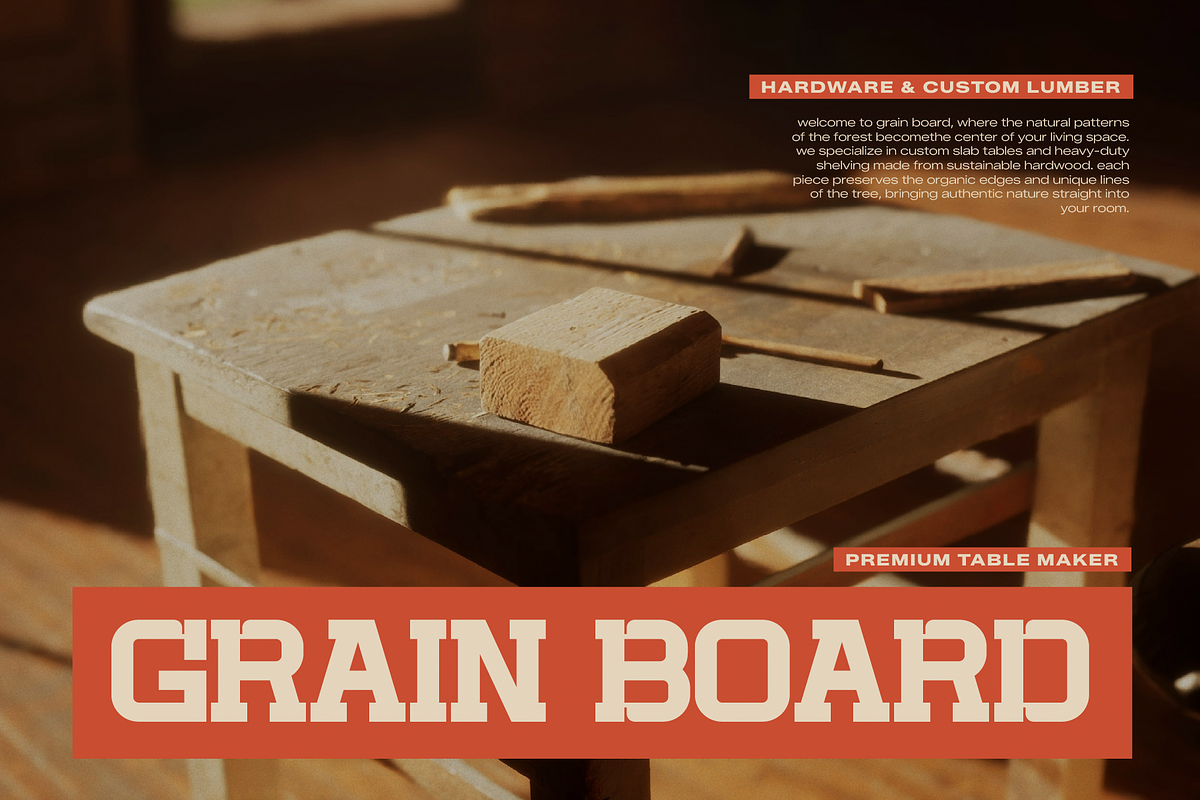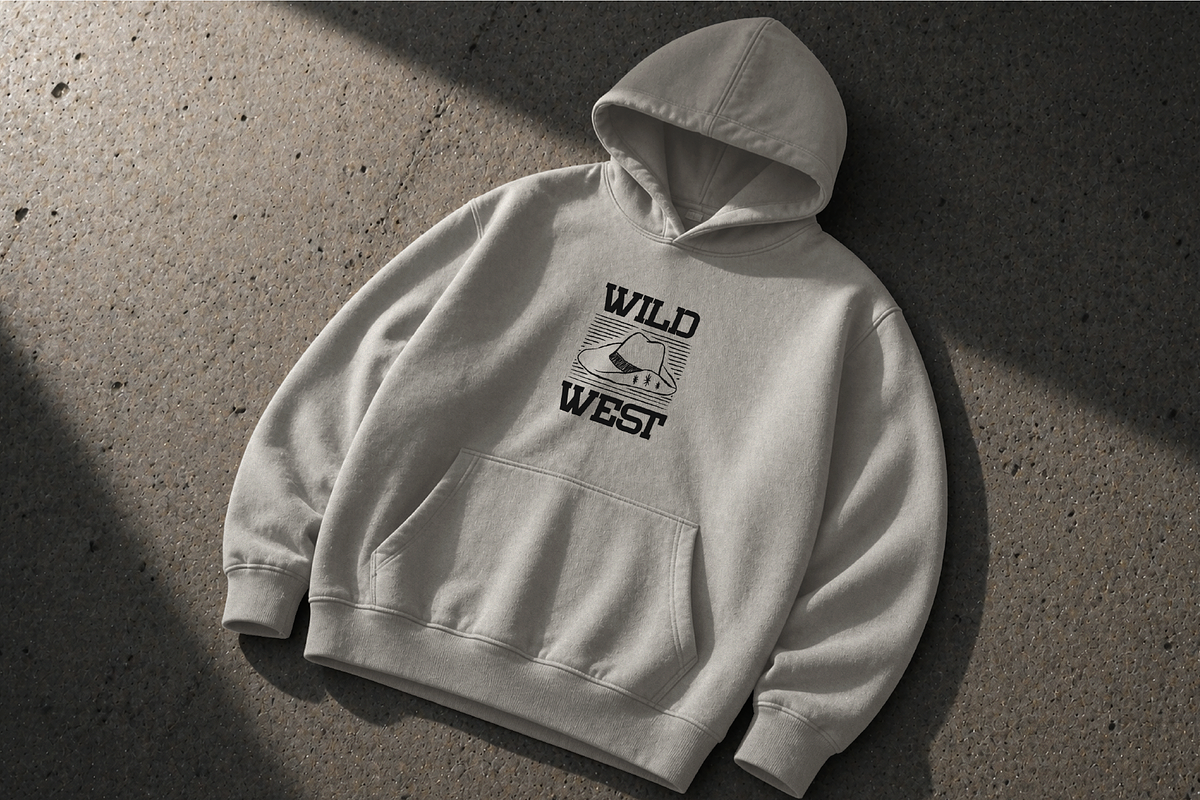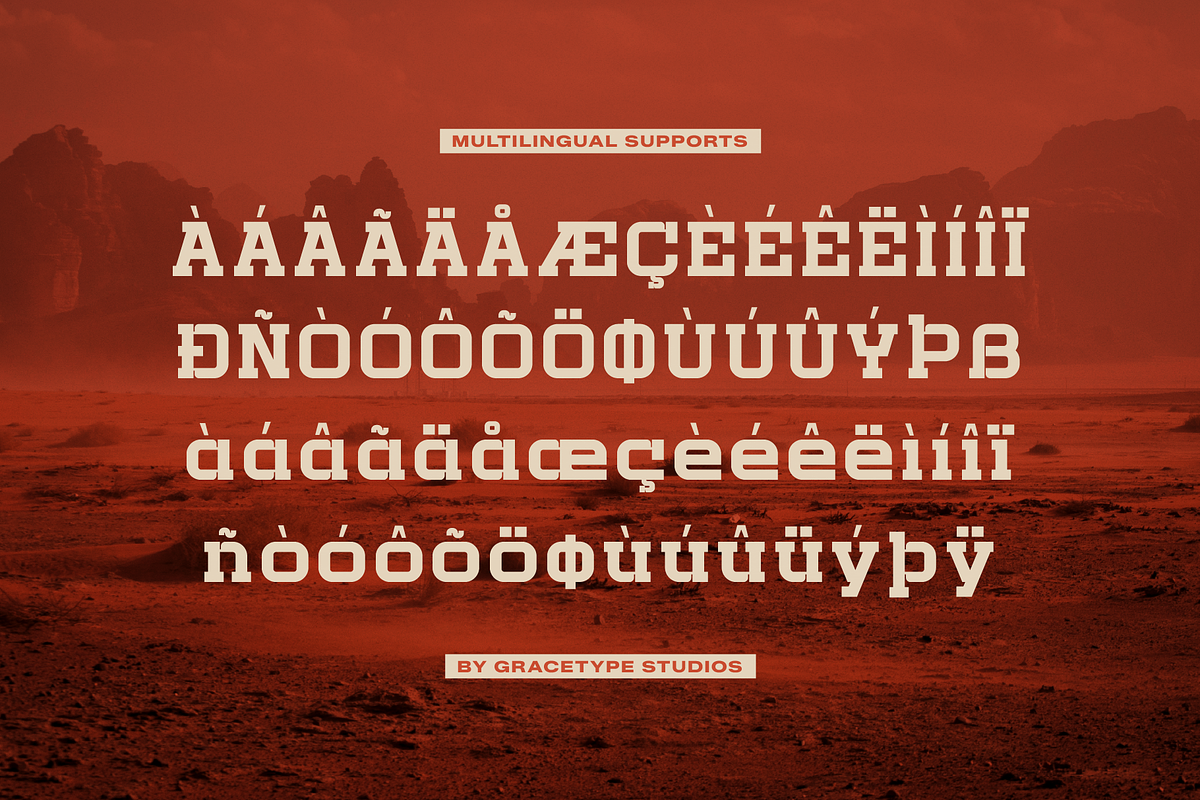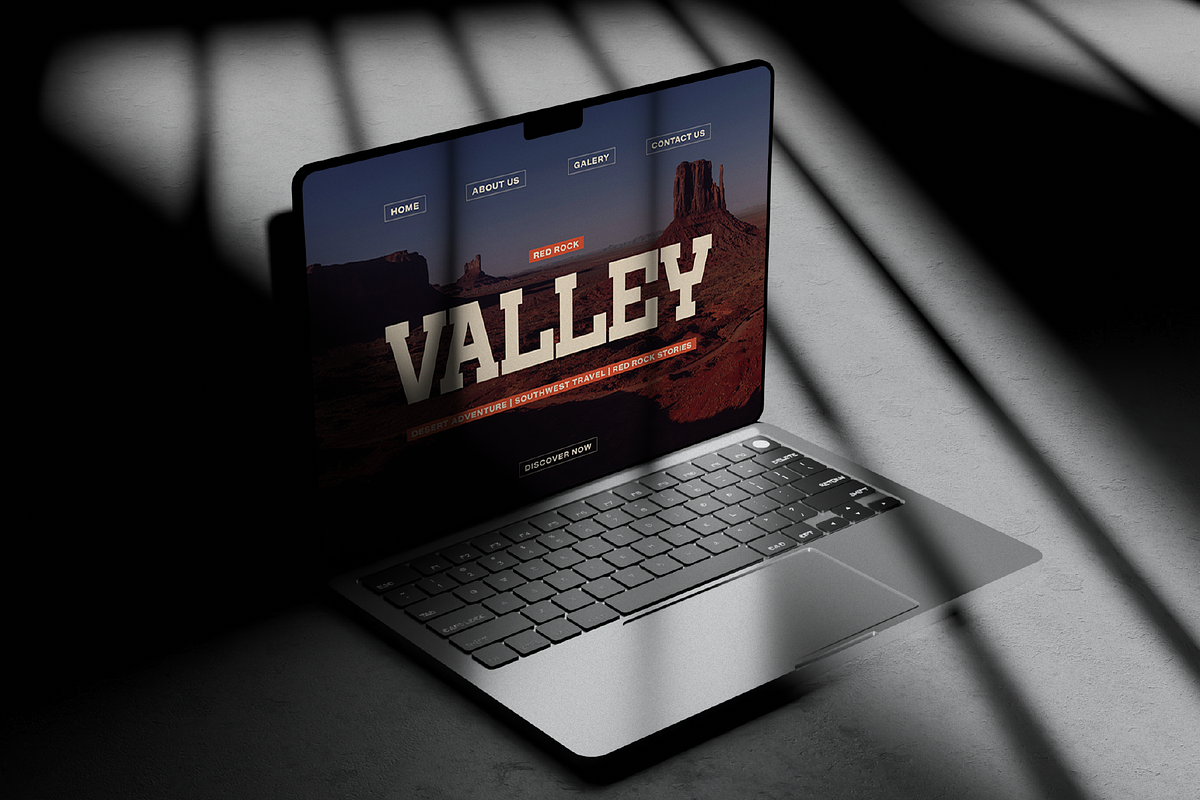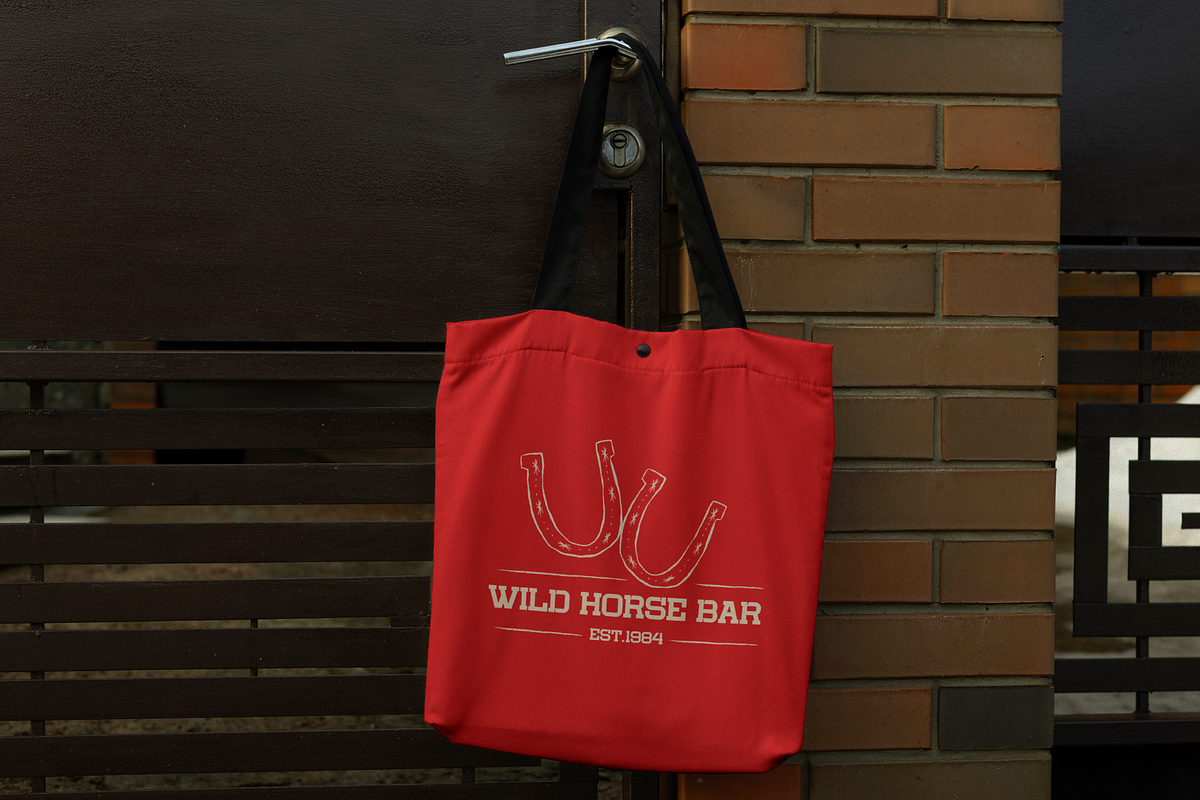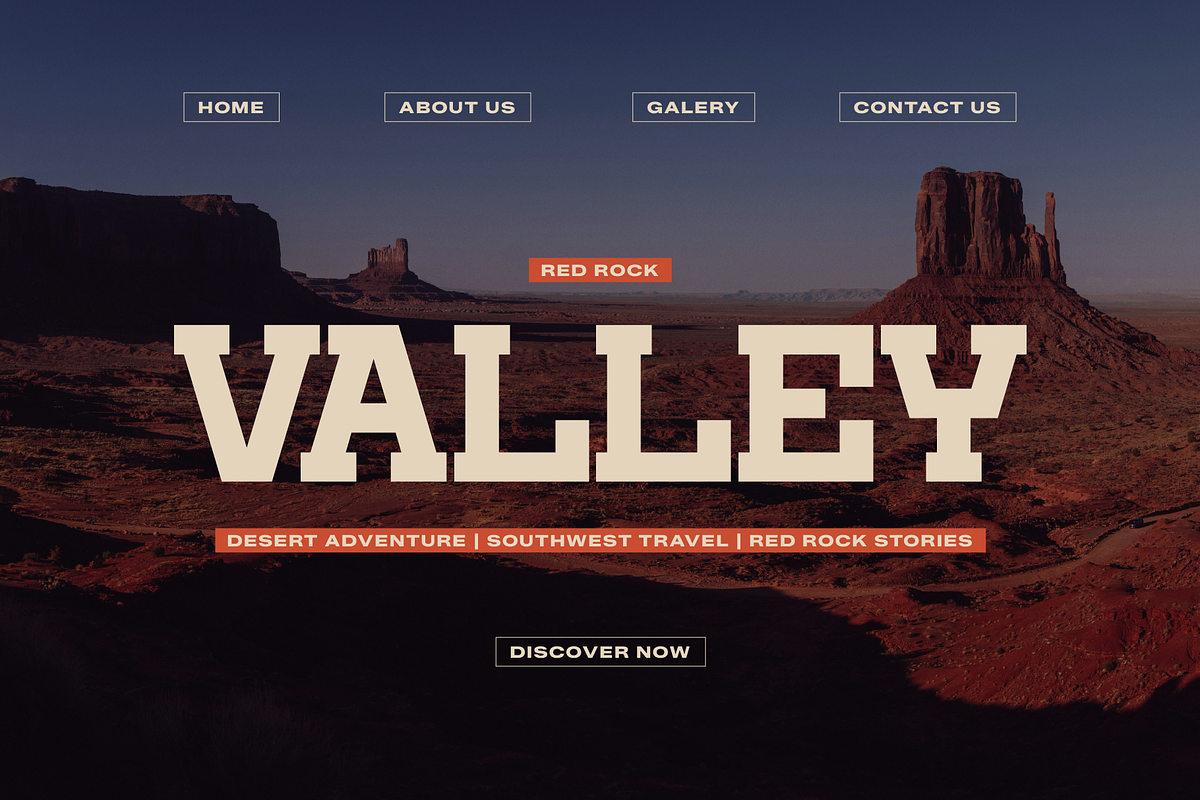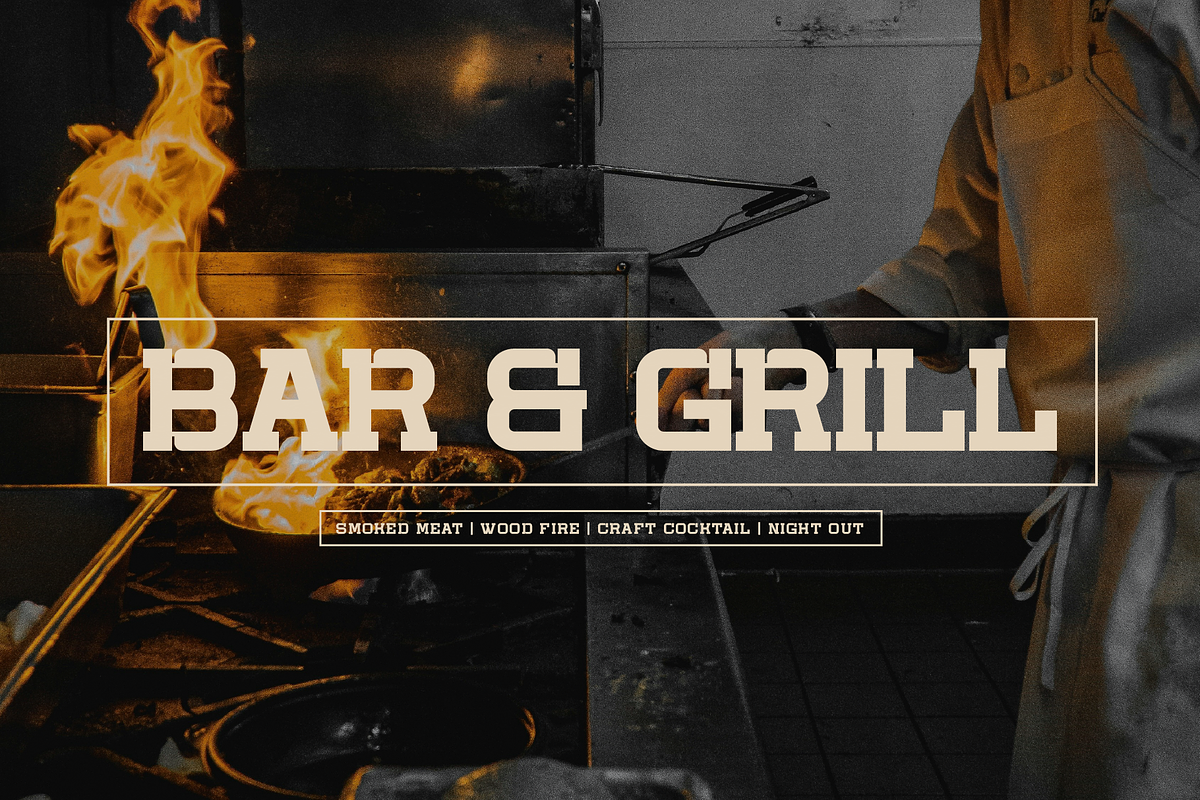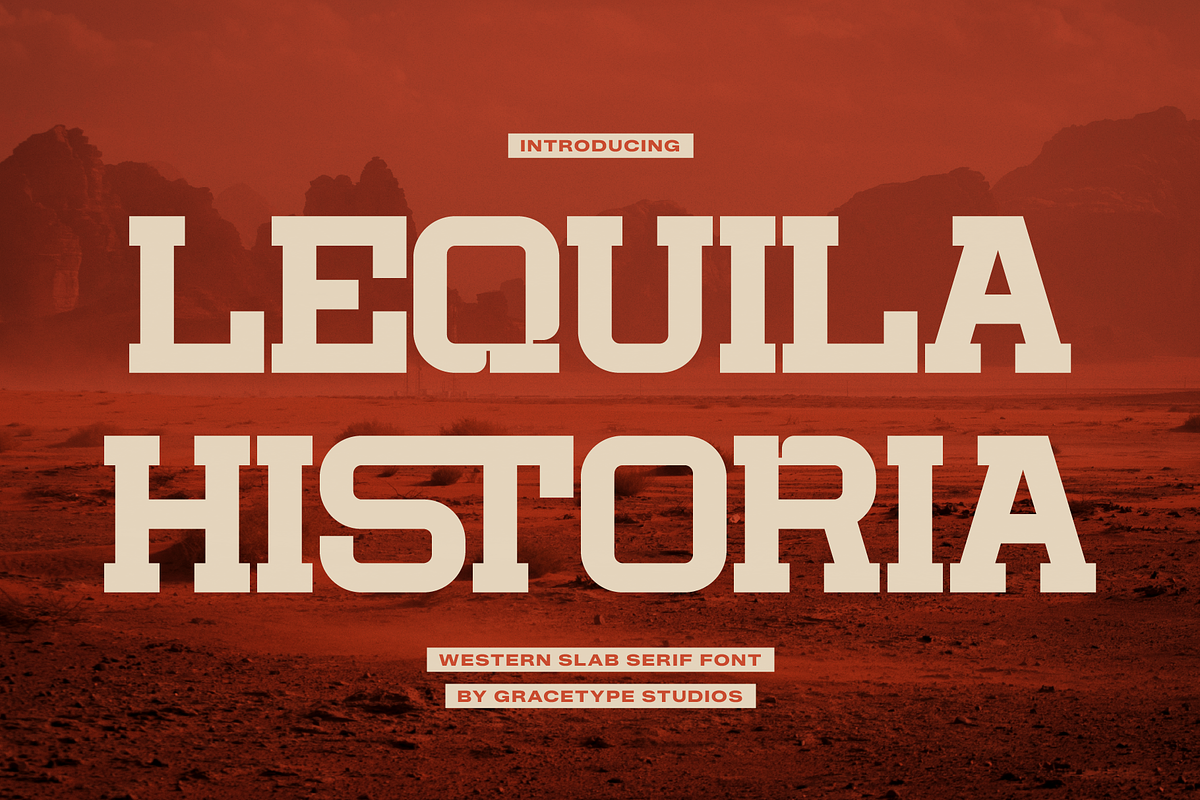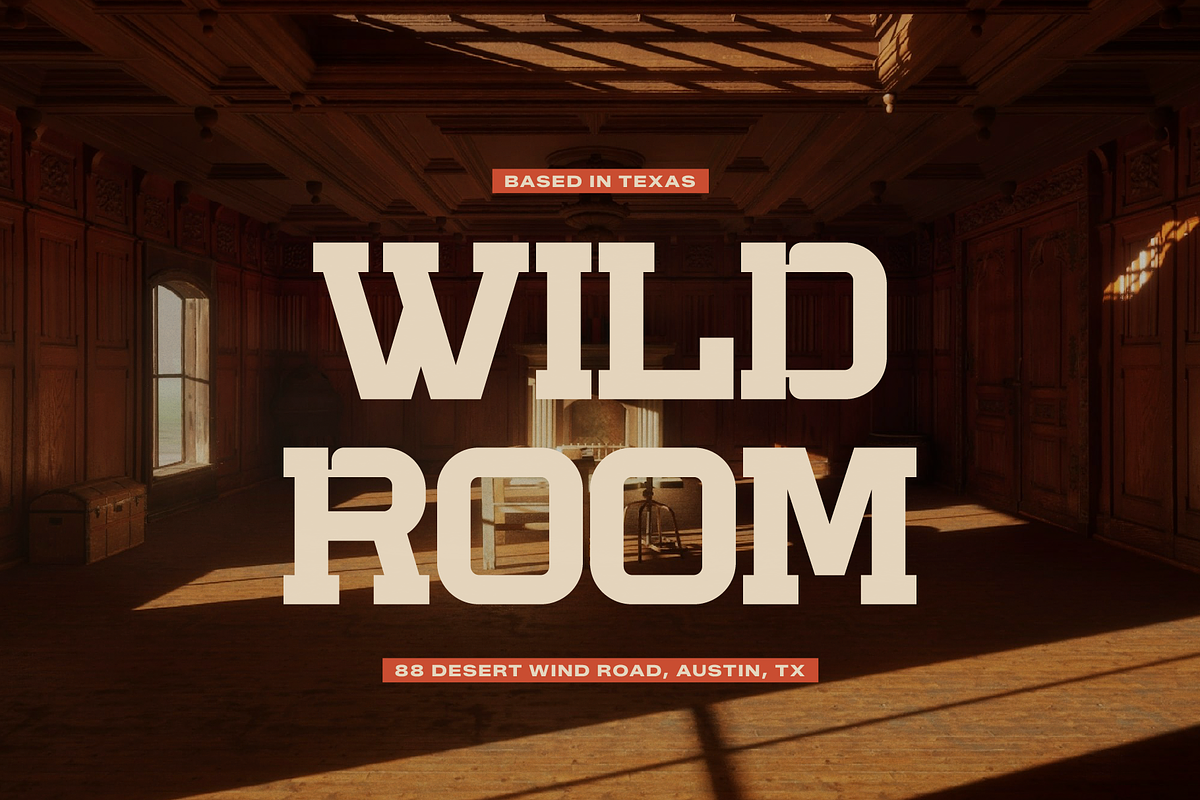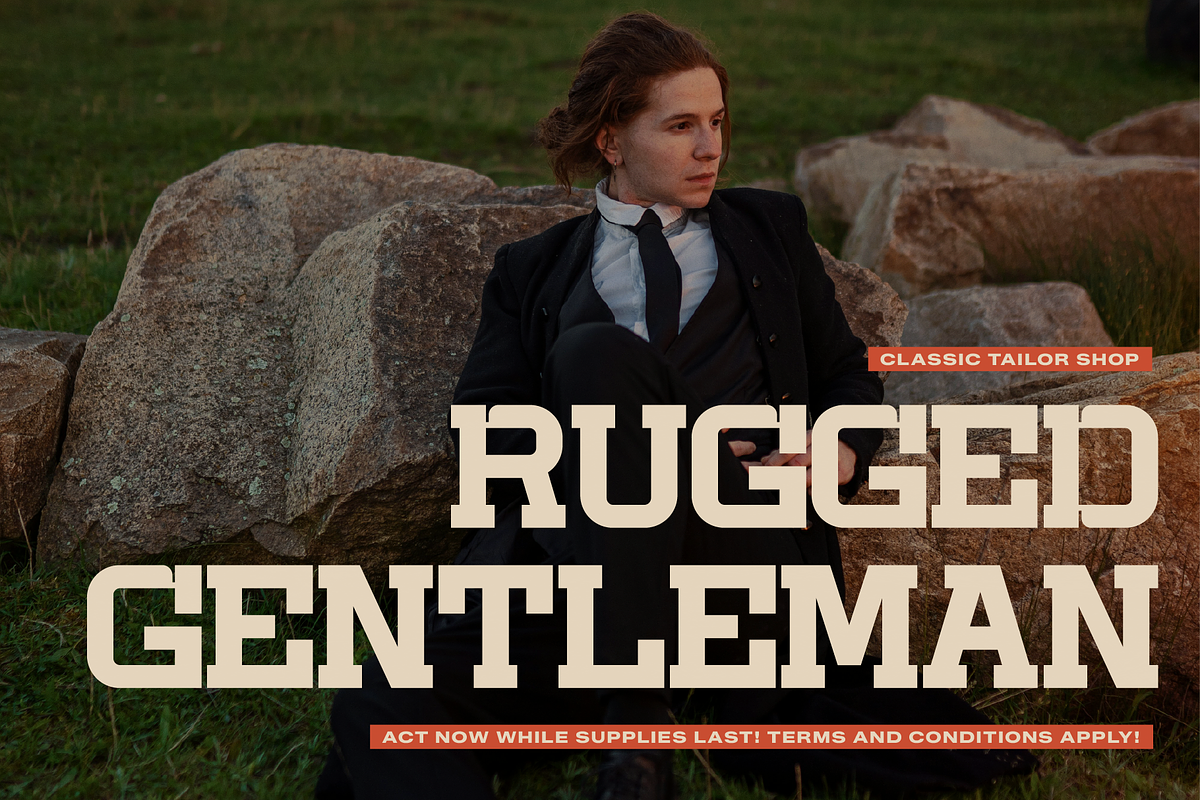
Lequila Historia Western Slab Serif
Lequila Historia | Western Slab Serif, from Gracetypestudio, suitable for any projects such as: logos, branding projects, homeware designs, product packaging, mugs, quotes, posters, shopping bags, t-shirts, book covers, name card, invitation cards, greeting cards, label, photography, watermark, special events, and all your other lovely projects that need a Slab Serif taste.
Standard glyphs
Alternate and Ligature
Fonts include multilingual support